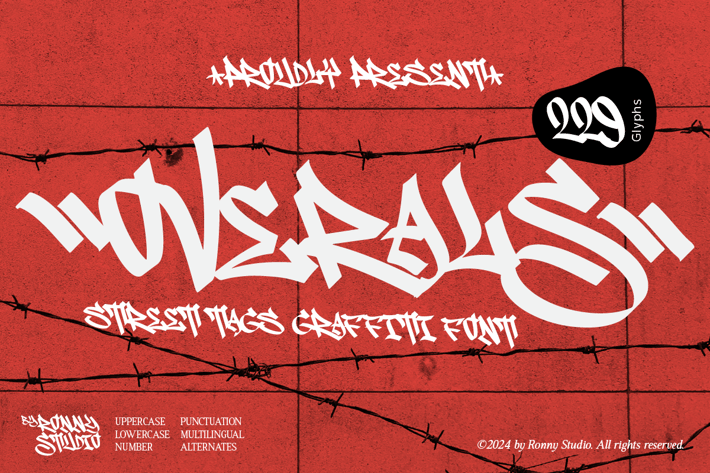
Overals - Street Tags Graffiti Font
Overlays is a flexible and stylish graffiti font, perfect for adding an urban touch to your designs. With an authentic street feel, this font is inspired by graffiti art and offers a bold and dynamic character. Overlays are ideal for those of you who want to integrate urban spirit into your creative work. This font is suitable for various types of designs that want to display an urban and street art feel, such as: Posters and Flyers, Branding and Logos, Social Media, Album Covers and Film Posters, Graffiti and Murals.
- Uppercase & Lowercase ( All Caps )
- numbers & punctuation
- Alternate & Ligature
- Swash / Ornament
- Multilingual